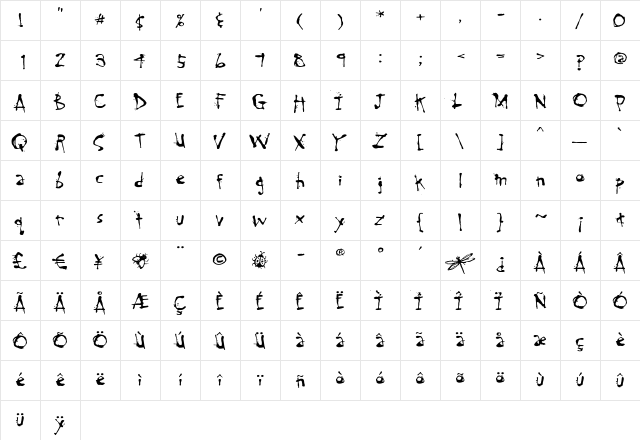
Epidemic Medium
Design Context for Epidemic Typeface
Epidemic is a composed and adaptable typeface that performs quietly and consistently across a wide range of design contexts.
Pro Tip: Pair Epidemic with a font of contrasting weight or personality to build a more expressive typographic hierarchy.